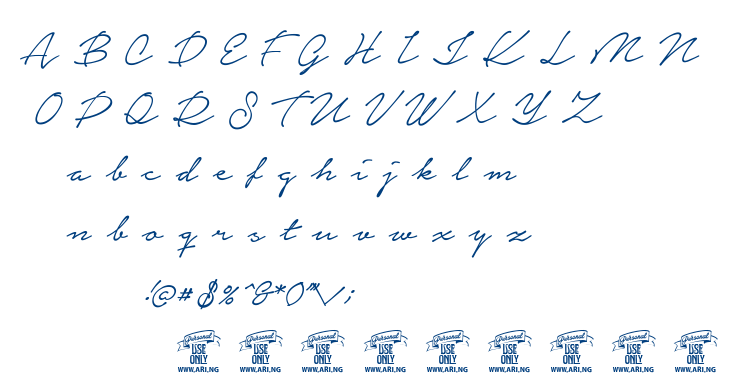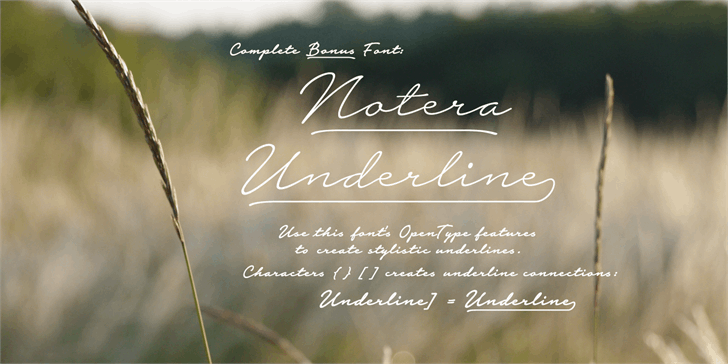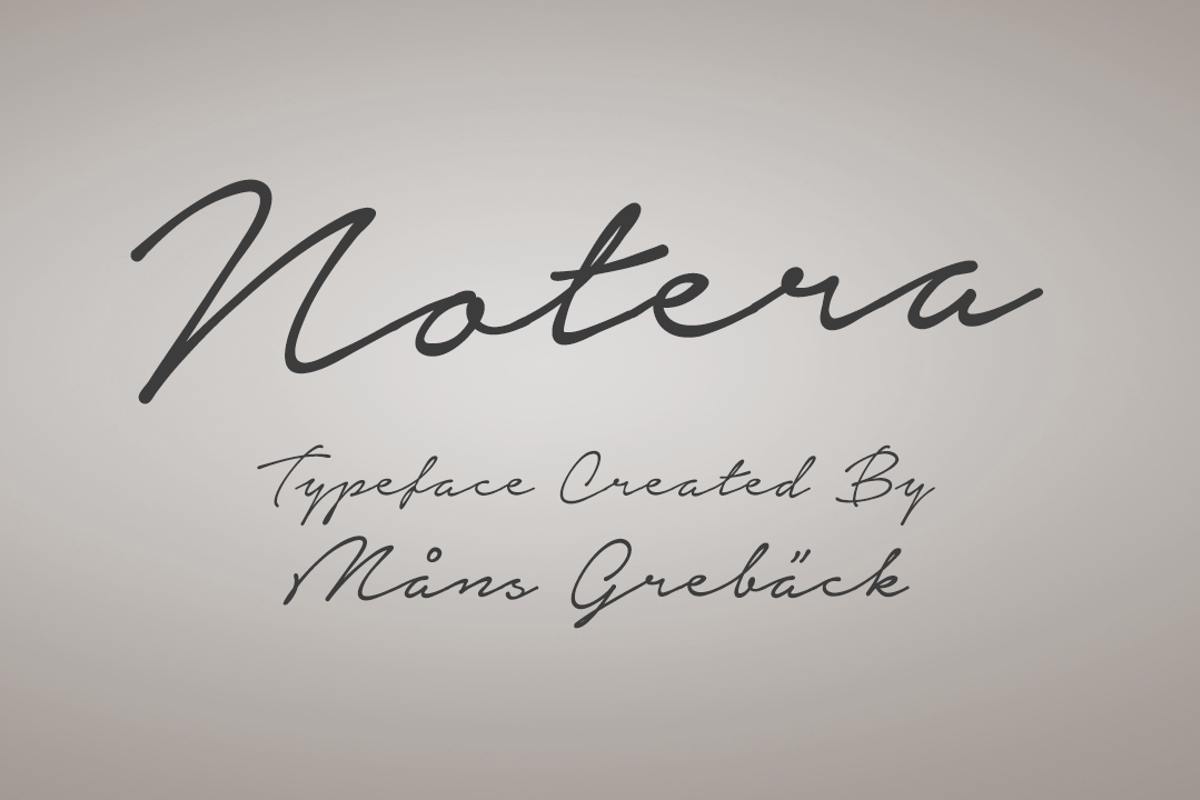
37+ Script Font Notera PNG. Thin, light, medium, bold and black. The notera font has been downloaded 96,064 times. Free download of notera font family with 6 styles. 2,408,900 downloads (267 yesterday) 5 comments free for personal use. This font is for personal use only! To purchase the full font and a commercial license, visit Download the notera font by måns grebäck. This font is for personal use only! It is a recreation of the popular notera font, extended to five weights: It is a recreation of the popular notera font, extended to five. 105 matching requests on the forum. This font was downloaded over 1.9 million time on dafont.com and a top popular font of the. Notera 2 font is a handwritten typeface drawn and created by måns grebäck in 2018. Notera is a handwritten script font that was designed by mans greback a swedish famous type designer. Notera 2 is a handwritten typeface drawn and created by måns grebäck in 2018.
Notera 2 Script Font Befonts Com. It is a recreation of the popular notera font, extended to five. Download the notera font by måns grebäck. Thin, light, medium, bold and black. Notera is a handwritten script font that was designed by mans greback a swedish famous type designer. Notera 2 font is a handwritten typeface drawn and created by måns grebäck in 2018. 105 matching requests on the forum. This font is for personal use only! To purchase the full font and a commercial license, visit It is a recreation of the popular notera font, extended to five weights: The notera font has been downloaded 96,064 times. Free download of notera font family with 6 styles. 2,408,900 downloads (267 yesterday) 5 comments free for personal use. This font was downloaded over 1.9 million time on dafont.com and a top popular font of the. This font is for personal use only! Notera 2 is a handwritten typeface drawn and created by måns grebäck in 2018.
Download the notera font by måns grebäck. Notera is a handwritten script font that was designed by mans greback a swedish famous type designer. Free download of notera font family with 6 styles. Notera personal use only шрифт: It is a recreation of the popular notera font, extended to five weights: Notera is a high quality handwritten signature font that is designed by måns grebäck and is available for free download. To purchase the full font and a commercial license, visit
This font was downloaded over 1.9 million time on dafont.com and a top popular font of the. Notera 2 font is a handwritten typeface drawn and created by måns grebäck in 2018. It is a recreation of the popular notera font, extended to five weights: Notera personal use only шрифт: 105 matching requests on the forum. Home › script › handwritten › notera handwritten signature font. This font is for personal use only! Notera is a typeface designed by måns grebäck, and is available for desktop, web, app, epub, and notera supports up to 80 different languages such as spanish, english, portuguese, german, french. Notera is a high quality handwritten signature font that is designed by måns grebäck and is available for free download. Notera font måns grebäck website. Download notera font (2 styles). 2,408,900 downloads (267 yesterday) 5 comments free for personal use. Lukara pro script font by nantia.co. The notera font has been downloaded 96,064 times. To purchase the full font and a commercial license, visit Notera is a handwritten script font that was designed by mans greback a swedish famous type designer. Script typefaces are based upon the varied and often fluid stroke created by handwriting, pretty much like the cursive fonts just typically more elegant. Notera font family $59 | 1 x ttf and otf. To purchase the full font and a commercial license, visit: Buy greek script decorative fonts. It is script font and has 5 styles. Next articleonadio script font free download. Leave a reply cancel reply. Thin, light, medium, bold and black. Notera 2 is a handwritten typeface drawn and created by måns grebäck in 2018. Note of the author note: Copyright (c) 2014 by mans greback. Download the notera font by måns grebäck. Free download of notera font family with 6 styles. This font is for personal use only! This font is for personal use only!
Notera 2 Script Font All Free Fonts. This font is for personal use only! It is a recreation of the popular notera font, extended to five weights: Download the notera font by måns grebäck. 2,408,900 downloads (267 yesterday) 5 comments free for personal use. This font was downloaded over 1.9 million time on dafont.com and a top popular font of the. To purchase the full font and a commercial license, visit This font is for personal use only! It is a recreation of the popular notera font, extended to five. 105 matching requests on the forum. Notera 2 is a handwritten typeface drawn and created by måns grebäck in 2018. Free download of notera font family with 6 styles. The notera font has been downloaded 96,064 times. Thin, light, medium, bold and black. Notera is a handwritten script font that was designed by mans greback a swedish famous type designer. Notera 2 font is a handwritten typeface drawn and created by måns grebäck in 2018.
Notera Personal Use Only Font Ffonts Net. Notera 2 font is a handwritten typeface drawn and created by måns grebäck in 2018. It is a recreation of the popular notera font, extended to five. Notera is a handwritten script font that was designed by mans greback a swedish famous type designer. Download the notera font by måns grebäck. Free download of notera font family with 6 styles. 2,408,900 downloads (267 yesterday) 5 comments free for personal use. The notera font has been downloaded 96,064 times. Thin, light, medium, bold and black. To purchase the full font and a commercial license, visit This font is for personal use only! Notera 2 is a handwritten typeface drawn and created by måns grebäck in 2018. 105 matching requests on the forum. This font is for personal use only! This font was downloaded over 1.9 million time on dafont.com and a top popular font of the. It is a recreation of the popular notera font, extended to five weights:
Notera 2 font is a handwritten typeface drawn and created by måns grebäck in 2018.
Similar Free Fonts And Alternative For Notera. Notera is a handwritten script font that was designed by mans greback a swedish famous type designer. This font was downloaded over 1.9 million time on dafont.com and a top popular font of the. This font is for personal use only! Download the notera font by måns grebäck. Free download of notera font family with 6 styles. 2,408,900 downloads (267 yesterday) 5 comments free for personal use. It is a recreation of the popular notera font, extended to five weights: Notera 2 font is a handwritten typeface drawn and created by måns grebäck in 2018. Notera 2 is a handwritten typeface drawn and created by måns grebäck in 2018. Thin, light, medium, bold and black. It is a recreation of the popular notera font, extended to five. To purchase the full font and a commercial license, visit 105 matching requests on the forum. This font is for personal use only! The notera font has been downloaded 96,064 times.
Download Free Notera Personal Use Only Regular Font Dafontfree Net. 105 matching requests on the forum. Thin, light, medium, bold and black. It is a recreation of the popular notera font, extended to five. The notera font has been downloaded 96,064 times. It is a recreation of the popular notera font, extended to five weights: This font is for personal use only! 2,408,900 downloads (267 yesterday) 5 comments free for personal use. Free download of notera font family with 6 styles. Notera is a handwritten script font that was designed by mans greback a swedish famous type designer. This font was downloaded over 1.9 million time on dafont.com and a top popular font of the. Notera 2 is a handwritten typeface drawn and created by måns grebäck in 2018. This font is for personal use only! Download the notera font by måns grebäck. Notera 2 font is a handwritten typeface drawn and created by måns grebäck in 2018. To purchase the full font and a commercial license, visit
It is a recreation of the popular notera font, extended to five.
Similar Free Fonts And Alternative For Notera. To purchase the full font and a commercial license, visit This font is for personal use only! Thin, light, medium, bold and black. The notera font has been downloaded 96,064 times. This font was downloaded over 1.9 million time on dafont.com and a top popular font of the. This font is for personal use only! Notera 2 is a handwritten typeface drawn and created by måns grebäck in 2018. Notera 2 font is a handwritten typeface drawn and created by måns grebäck in 2018. It is a recreation of the popular notera font, extended to five. Notera is a handwritten script font that was designed by mans greback a swedish famous type designer. It is a recreation of the popular notera font, extended to five weights: 2,408,900 downloads (267 yesterday) 5 comments free for personal use. Download the notera font by måns grebäck. 105 matching requests on the forum. Free download of notera font family with 6 styles.
Notera Free Handwritten Script Font Free Fonts. Free download of notera font family with 6 styles. Notera 2 is a handwritten typeface drawn and created by måns grebäck in 2018. 2,408,900 downloads (267 yesterday) 5 comments free for personal use. Notera 2 font is a handwritten typeface drawn and created by måns grebäck in 2018. Notera is a handwritten script font that was designed by mans greback a swedish famous type designer. It is a recreation of the popular notera font, extended to five weights: It is a recreation of the popular notera font, extended to five. To purchase the full font and a commercial license, visit Download the notera font by måns grebäck. 105 matching requests on the forum. Thin, light, medium, bold and black. This font was downloaded over 1.9 million time on dafont.com and a top popular font of the. This font is for personal use only! The notera font has been downloaded 96,064 times.
Notera is a typeface designed by måns grebäck, and is available for desktop, web, app, epub, and notera supports up to 80 different languages such as spanish, english, portuguese, german, french. It is a recreation of the popular notera font, extended to five. To purchase the full font and a commercial license, visit Notera 2 font is a handwritten typeface drawn and created by måns grebäck in 2018. This font is for personal use only! Notera 2 is a handwritten typeface drawn and created by måns grebäck in 2018. This font is for personal use only! To purchase the full font and a commercial license, visit: Lukara pro script font by nantia.co. Leave a reply cancel reply.